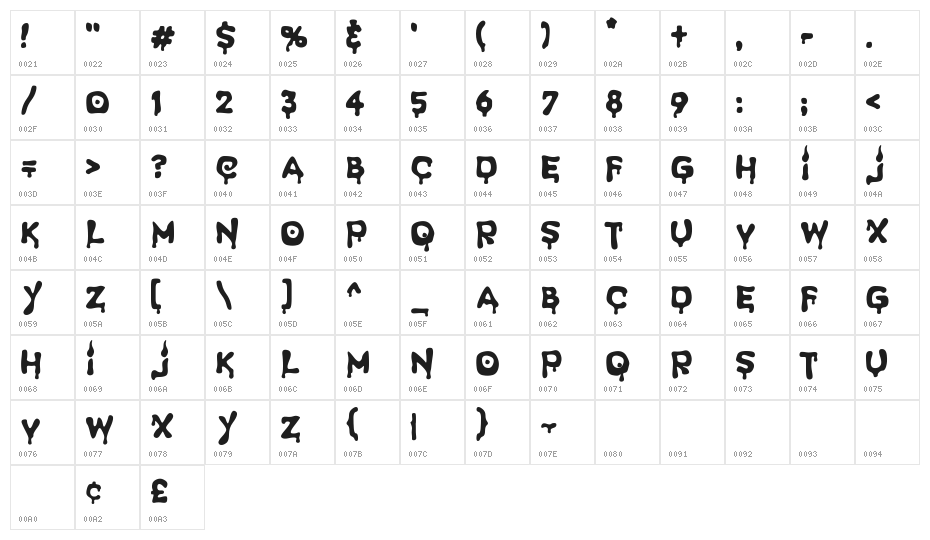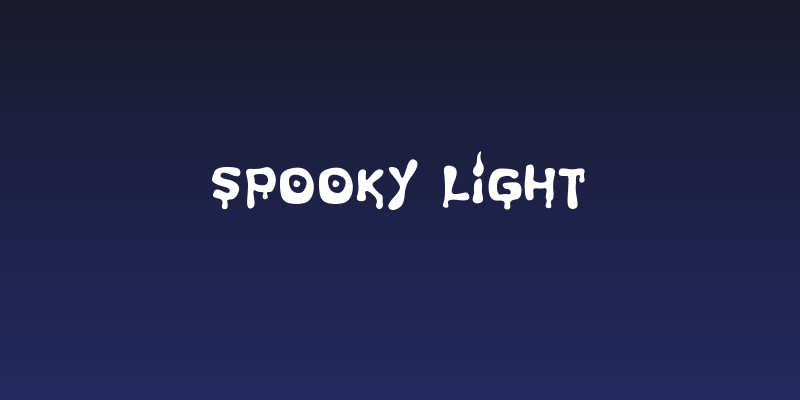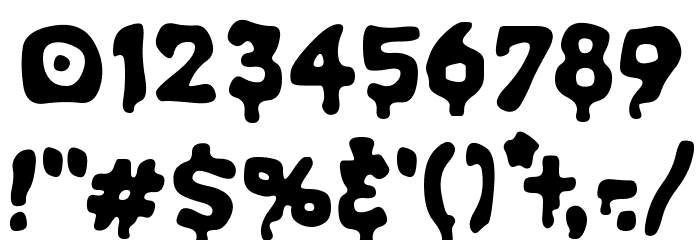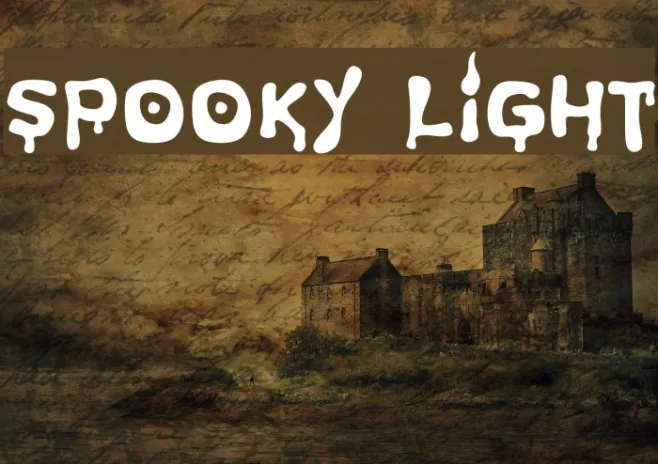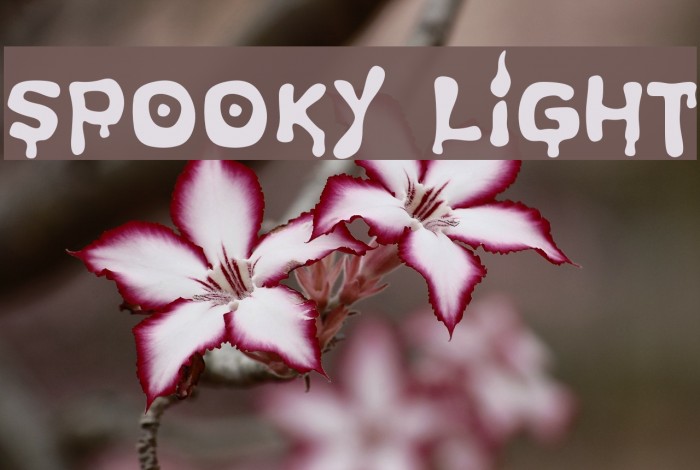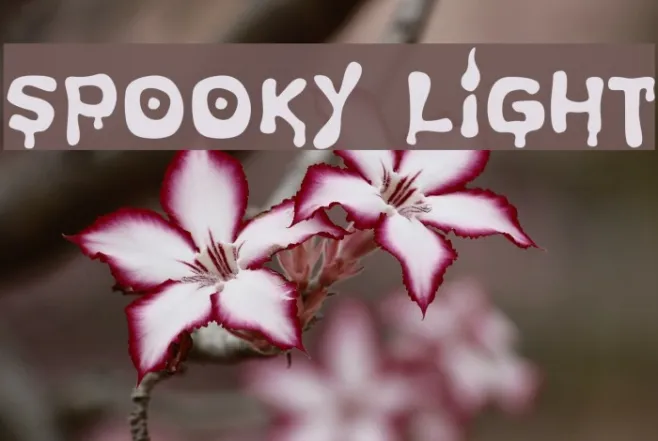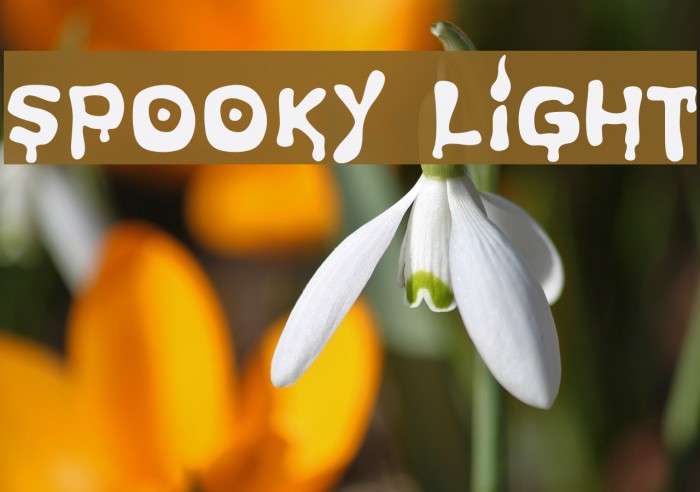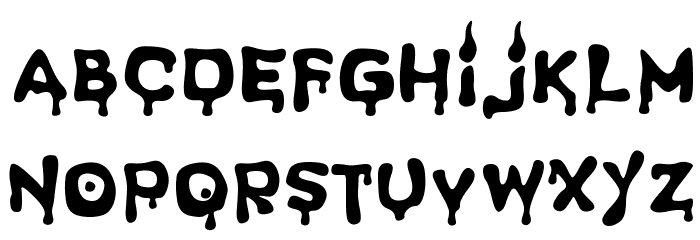
Spooky Light Font
Spooky Light Description
This font features a playful and eerie design, reminiscent of dripping or melting shapes, which gives it a spooky and whimsical appearance. The characters are bold and rounded, with irregular edges that create a sense of movement and fluidity. The uppercase and lowercase letters maintain a consistent style, with each character appearing as if it is oozing or dripping. The numbers and special characters follow the same theme, adding to the cohesive look of the font. This unique style makes it ideal for Halloween-themed projects or any design that requires a touch of the unusual and fun.
| Proposed Projects | Ideal for Halloween invitations, themed posters, children's book covers, or any project needing a whimsical and eerie touch. |